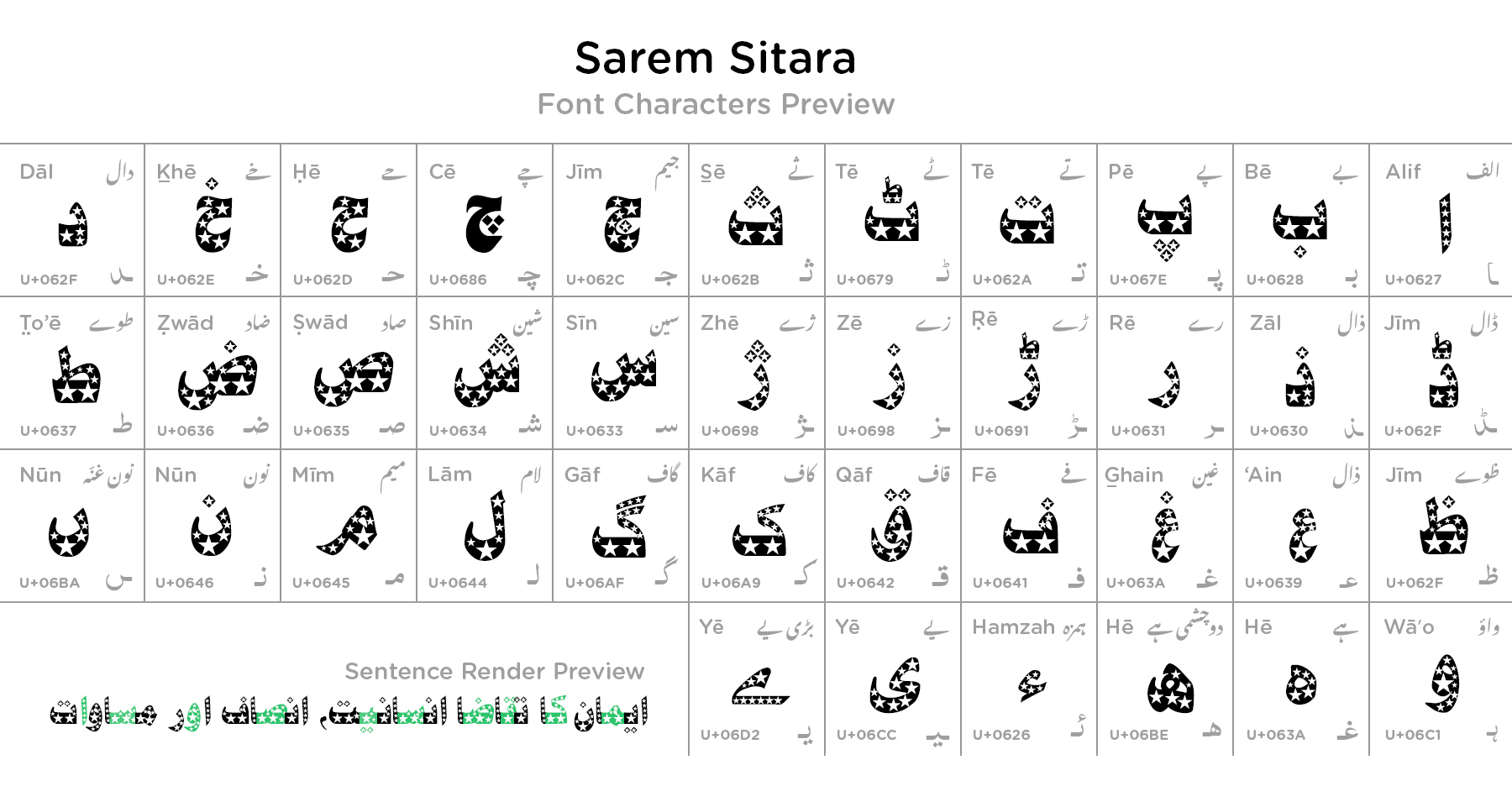
Sarem Sitara is an eye-catching font whose letters are filled with starry design. This decorative touch gives a festive feel. It is a bold and sans-serif typeface. The letters are sturdy and well-defined. It fulfils the latest Unicode standards. This free font has multilingual support and can be installed in any device or even mobile phones. All the curves are smooth, clear, and has rounded edges. The letters are uniform in shape which gives a consistent look across the text. The stroke weight is bold and even throughout the font it remains same. But, the stars inside the letters slightly change the visual weight of this font. These stars soften the overall structure and create unique contrast between boldness of the font and detailing of stars. Sarem Sitara is overall playful but bold font. It is suitable for uses like banners, event promotions, or social media posts, especially when festive tone is needed. The letters are thicker from bottom and slightly thinner in beginnings and tops.